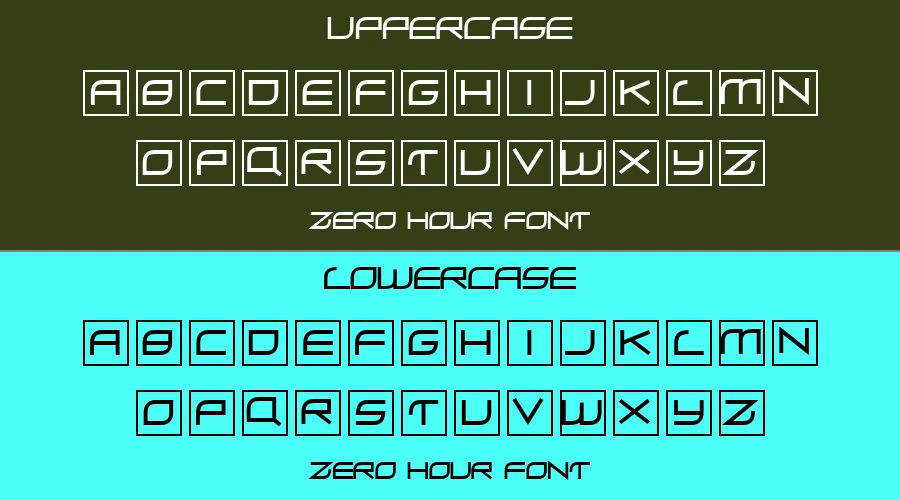
About Zero Hour Font
Designed with precision, Zero Hour Font merges harmonious shapes with technical accuracy in every character. This versatility makes it particularly effective for web design, where precision and refinement directly impact communication quality. Each letterform demonstrates meticulous craftsmanship.
Technical excellence shines through elements like organic forms and arbitrary fractions, enhancing typographic versatility. In brand manuals settings, Zero Hour Font proves its worth through superior overlay performance. The thoughtful execution of shoulder shape and technical innovation ensures professional results.